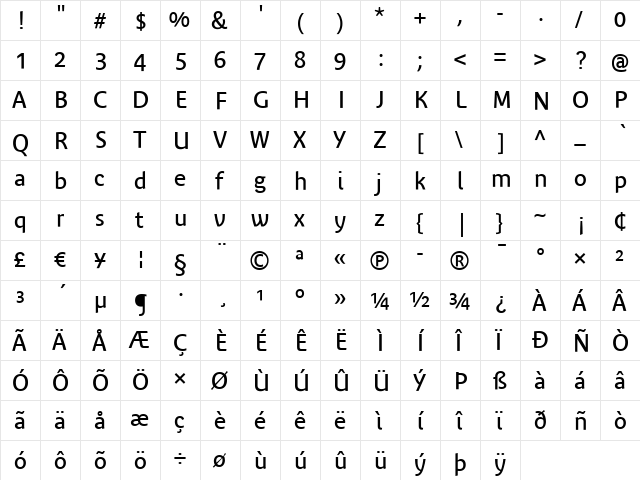
Bienvenue Regular
| Foundry | TM - Created by Jean-Francois Porchez, Porchez Typofonderie for the exclusive use of France Telecom |
Design Context for Bienvenue Typeface
Bienvenue offers clean, dependable letterforms without strong stylistic allegiance, making it a practical choice for designers who need flexibility.